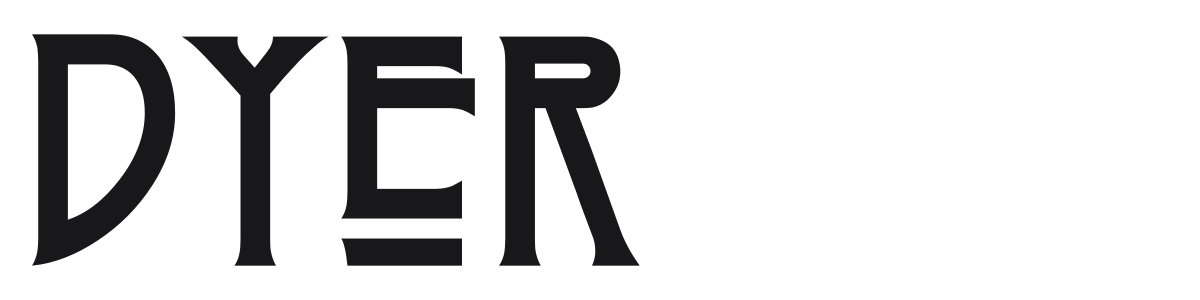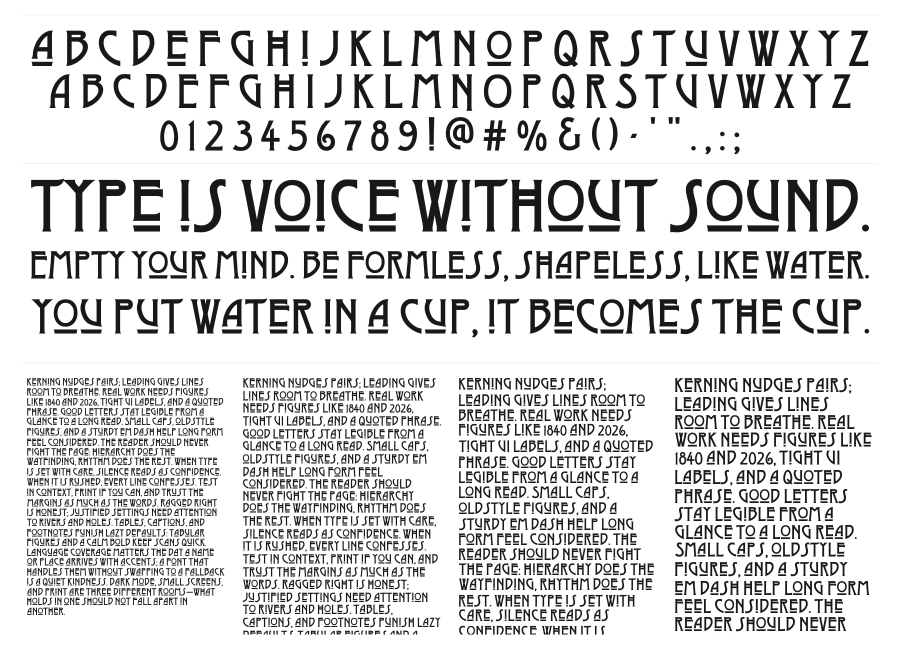
Dyer
Dyer is a bold display serif rooted in Art Nouveau titling traditions, with tall narrow forms and dramatic wedge-shaped serifs. The high stroke contrast and stepped terminal details give it a rigid, architectural presence that reads powerfully at large sizes. It carries the weight of early 20th-century decorative print without tipping into pastiche.